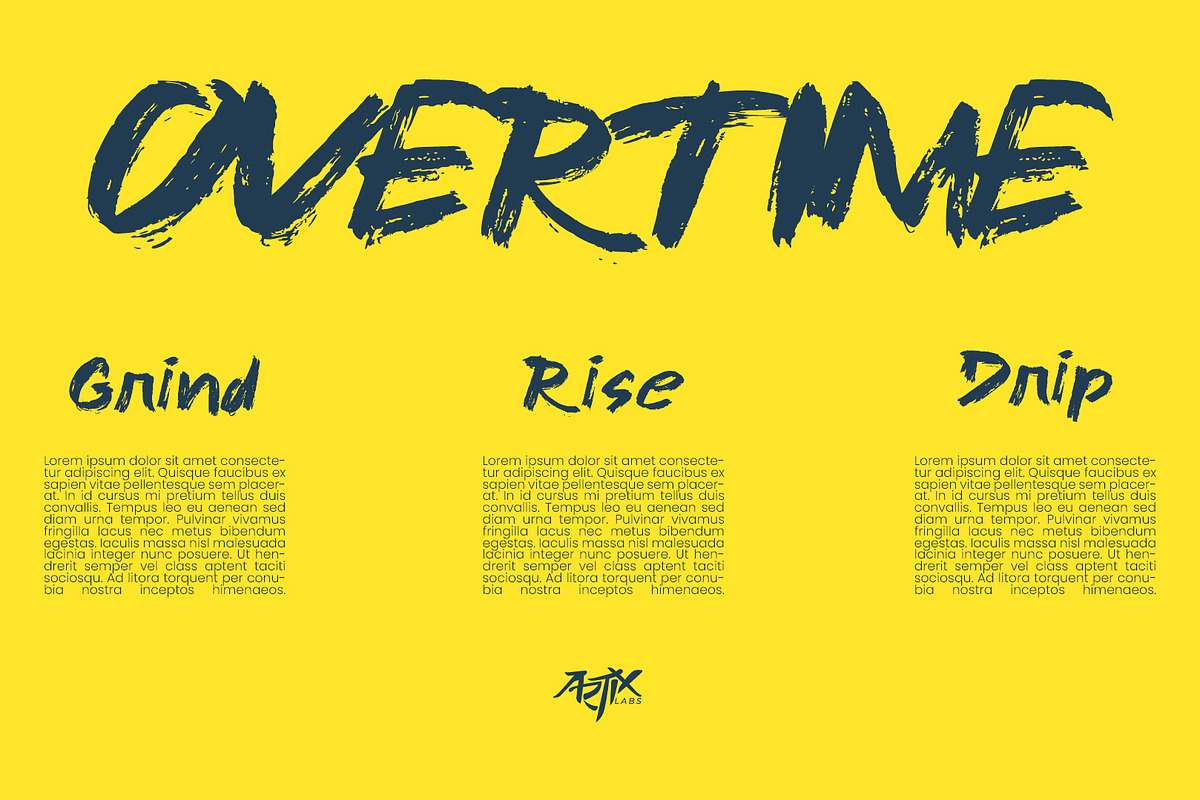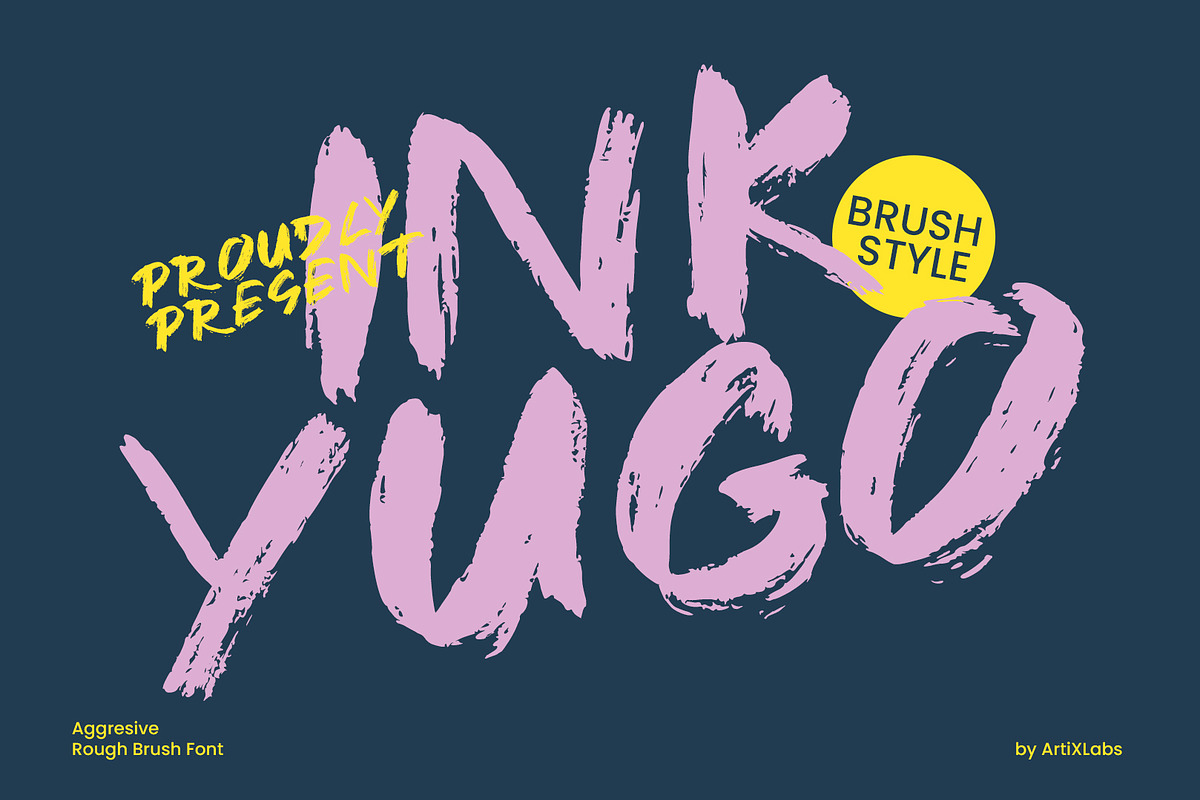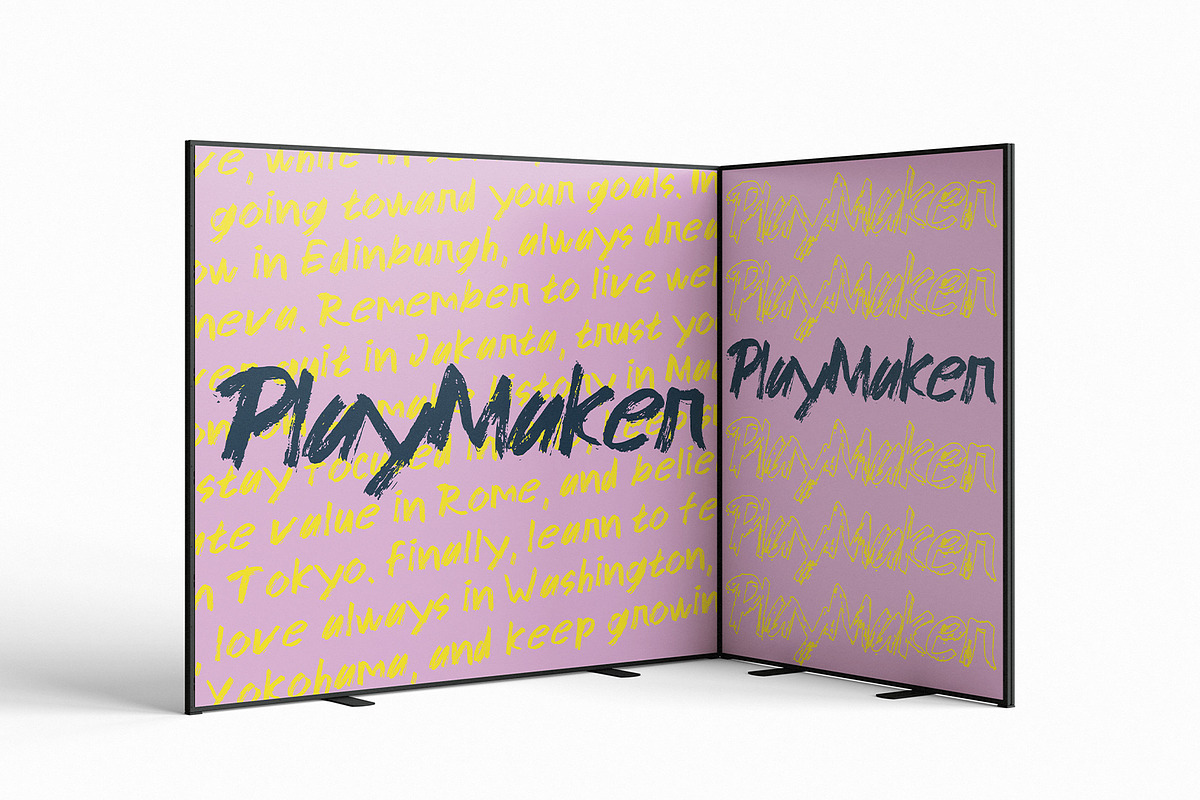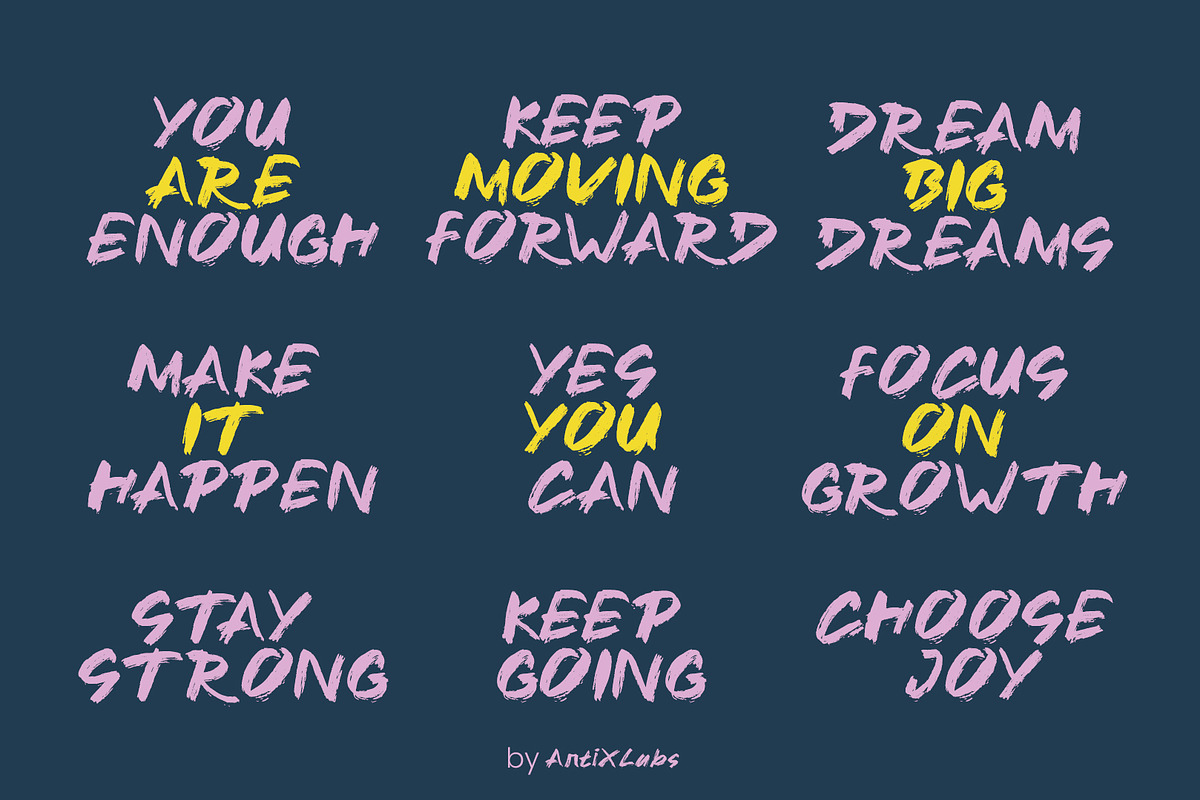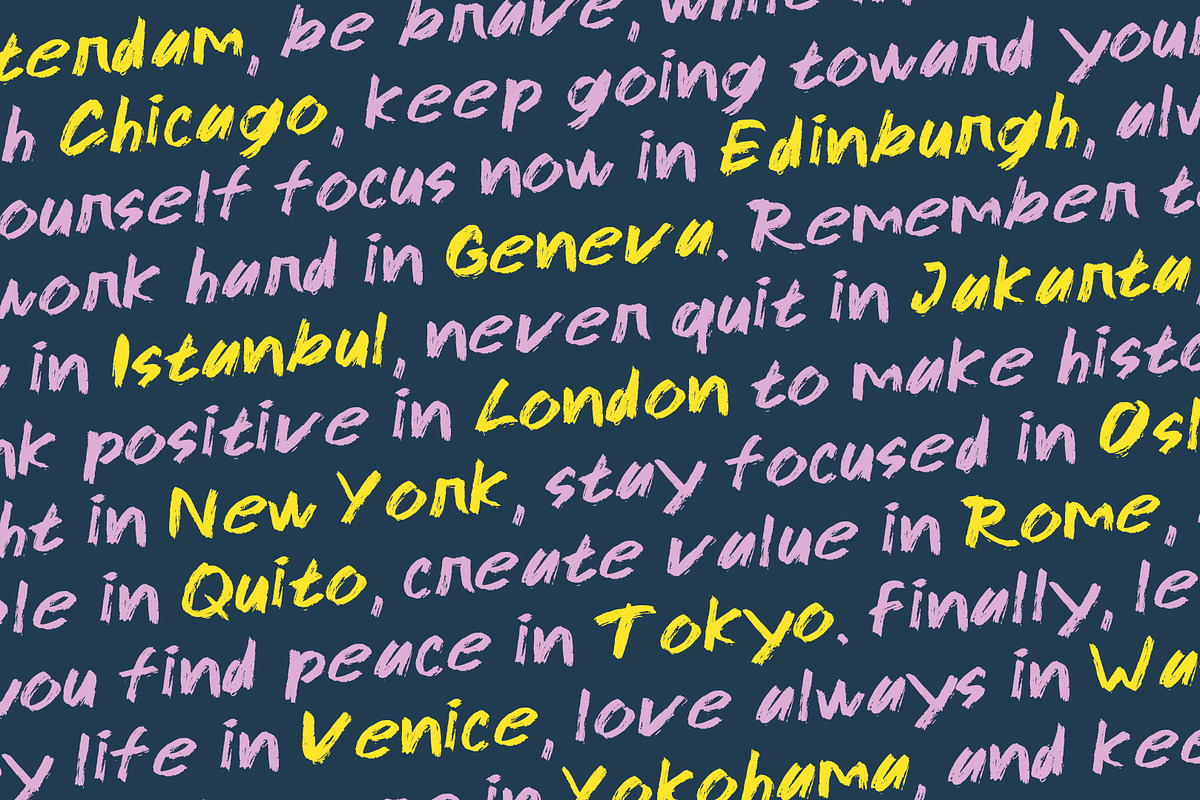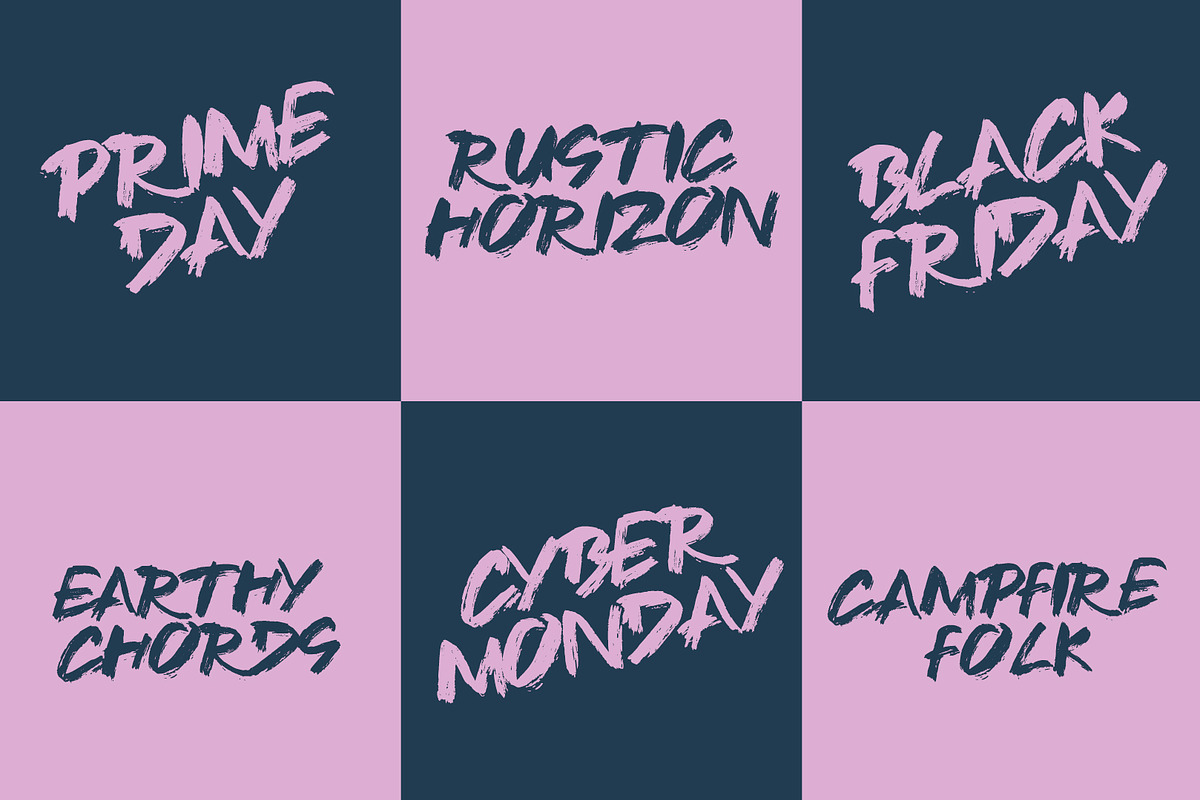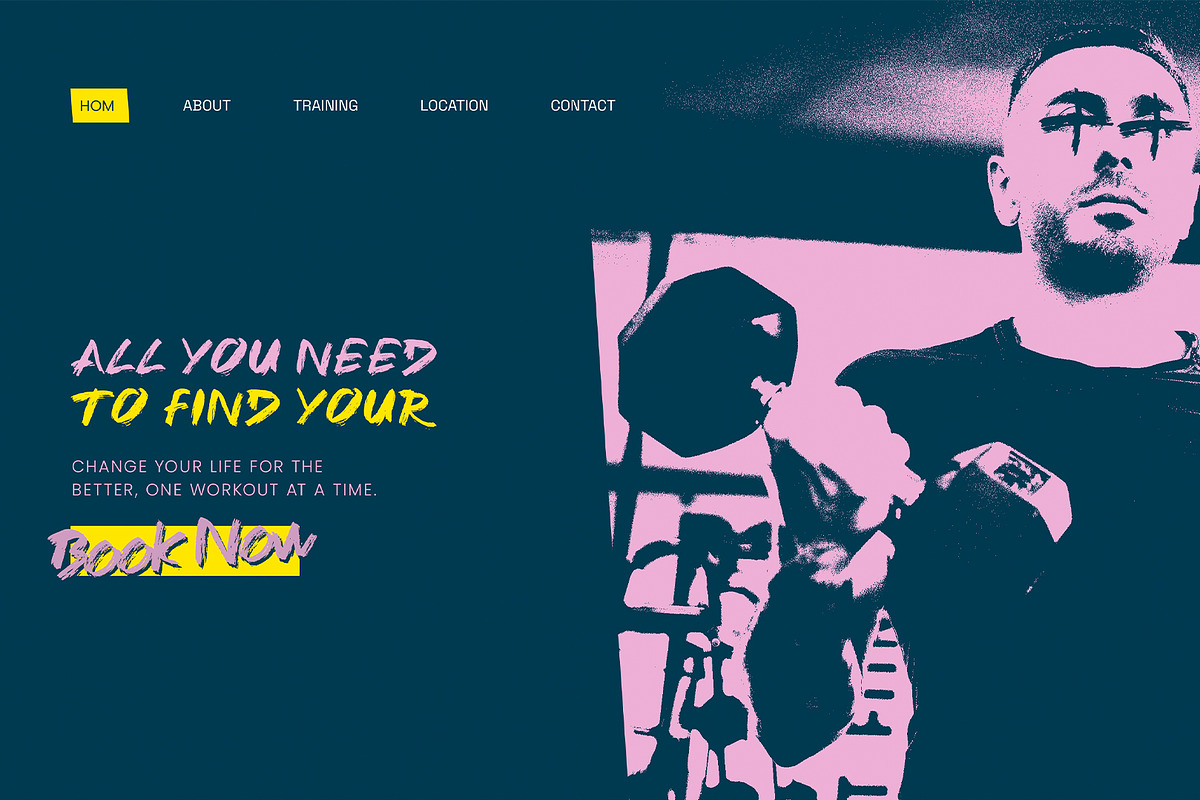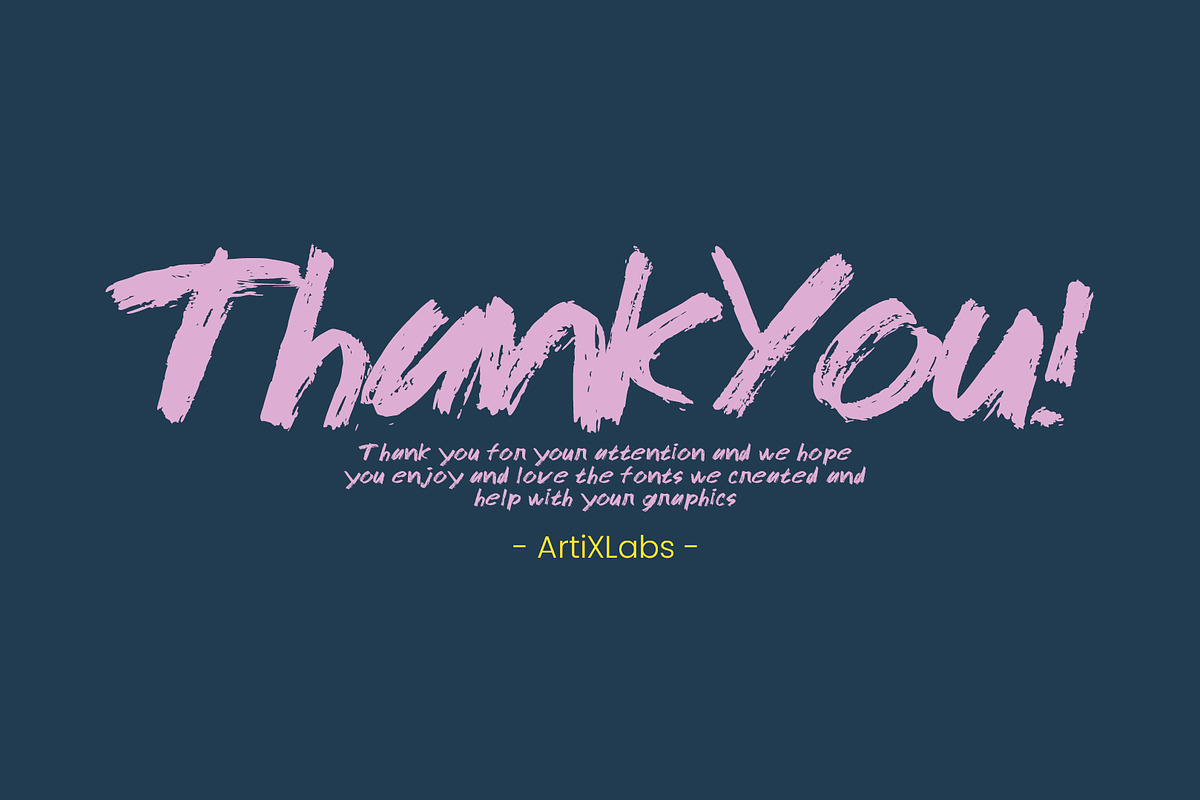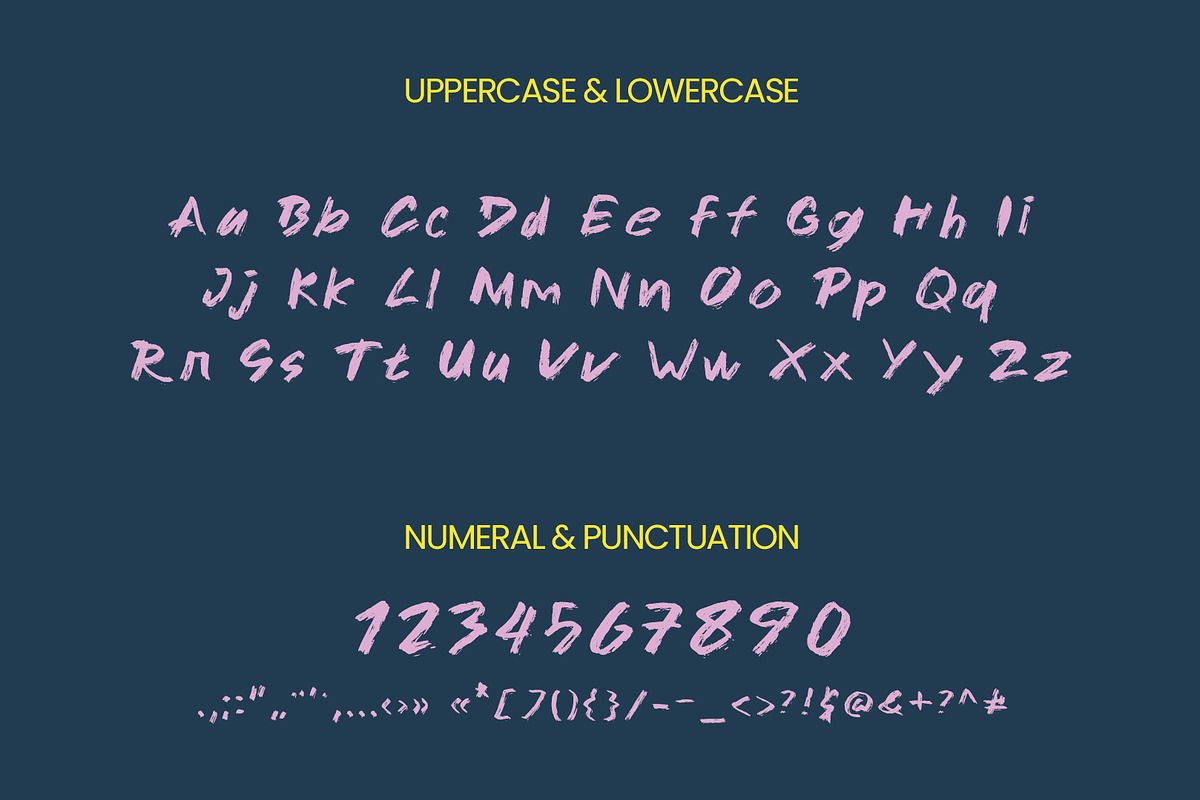
Ink Yugo - Brush Ink Raw Display
Introducing Ink Yugo - Brush Ink Raw Font
This Font Template contains Urban, Street, Liar, Expressive, Creative, Professional and Unique Concept.
- Uppercase & Lowercase letters